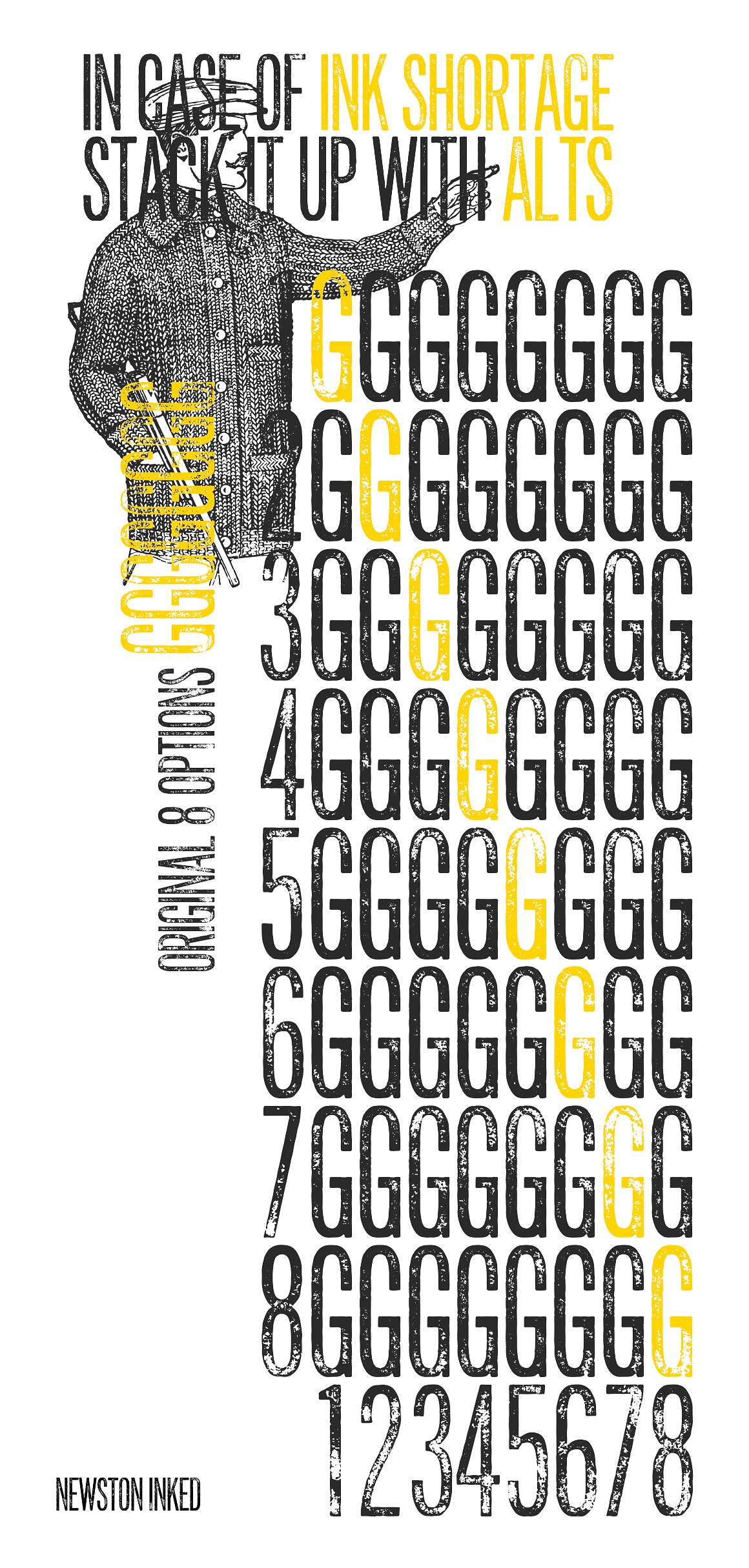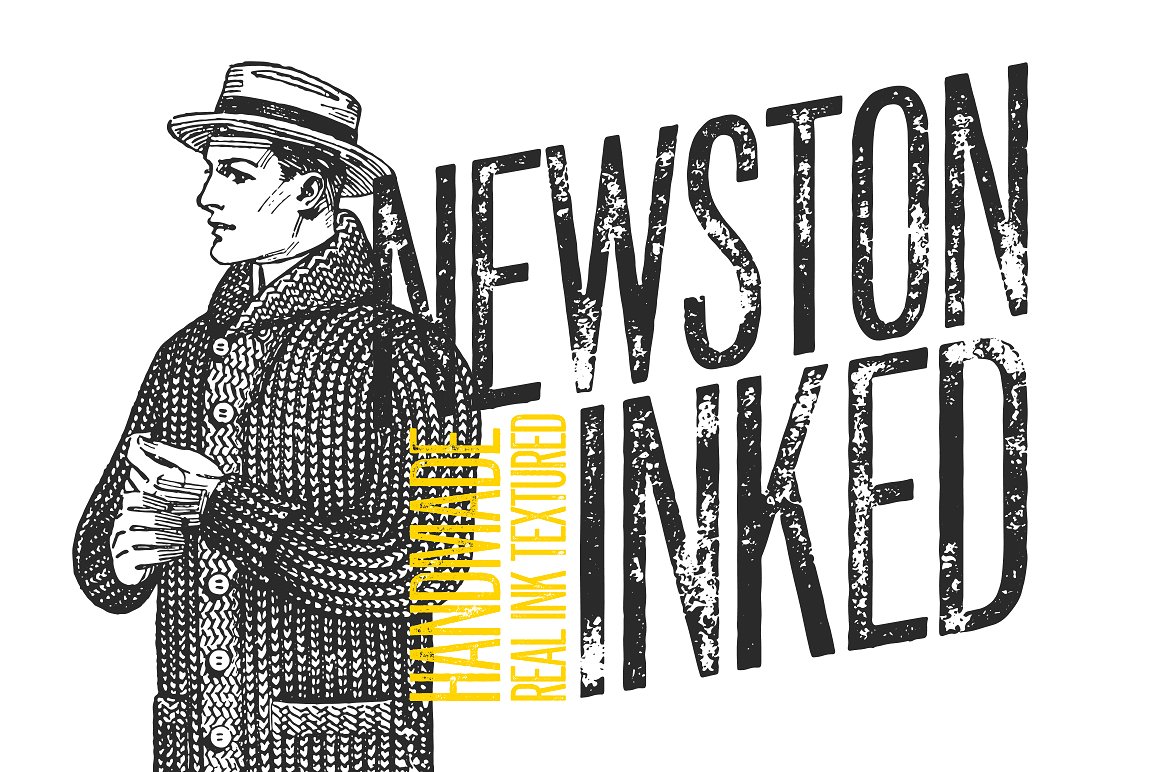
Newston Inked Typeface
Introducing Newston Inked – an inkable vintage typeface handmade out of authentic ink and passion.
| Classification: | Display Fonts, Retro / Vintage Fonts, Sans Serif Fonts |